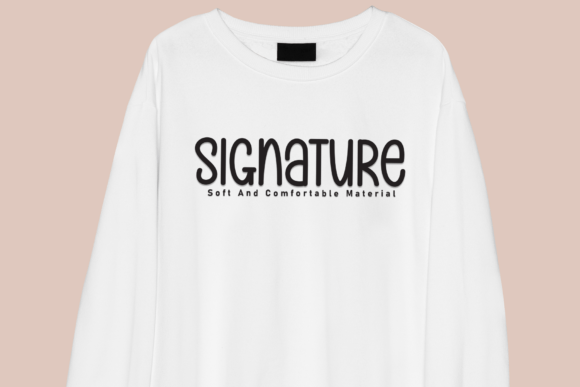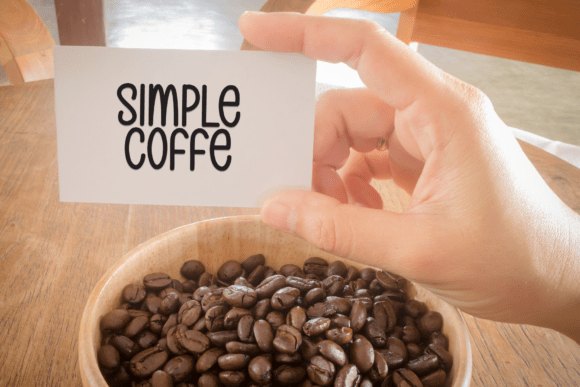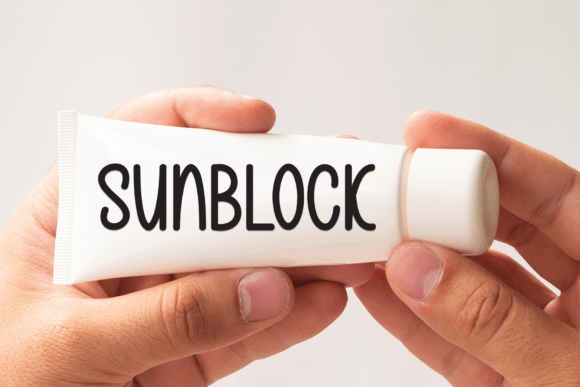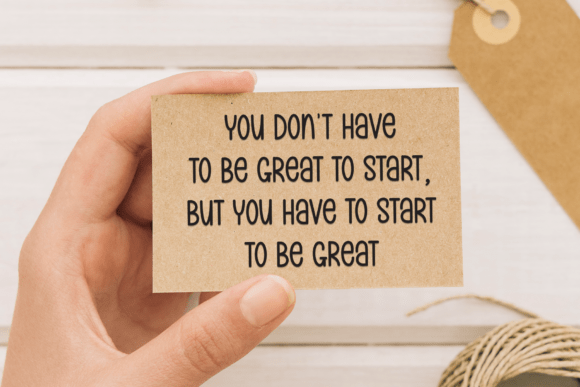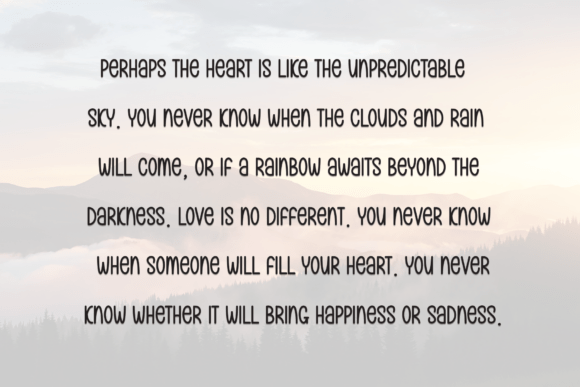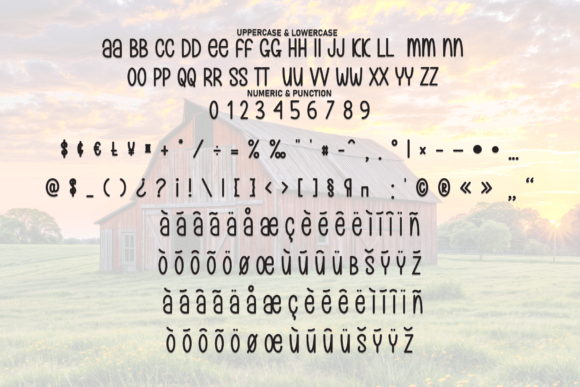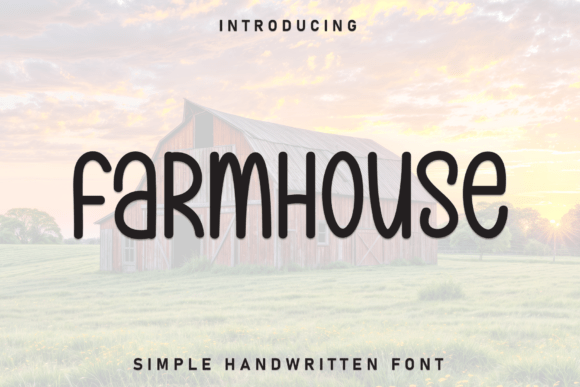
Introducing Farmhouse Font: The Perfect Blend of Simplicity and Friendliness
In the world of typography, fonts play a crucial role in conveying the tone and personality of a brand or design. For designers and crafters looking for a font that exudes warmth, approachability, and modernity, Farmhouse Font is an excellent choice. This casual and neat display font combines simplicity with a friendly vibe, making it perfect for a wide range of design applications.
Clean Lines, Balanced Letterforms, and Subtle Rounded Edges
Farmhouse Font boasts clean lines, balanced letterforms, and subtle rounded edges that give it a unique and polished finish. The font’s design is inspired by modern handwritten typography, but with a refined and sophisticated twist. The clean lines and balanced letterforms ensure that the font is easy to read, while the subtle rounded edges add a touch of warmth and friendliness.
Ideal for Branding, Headlines, Packaging, and Digital Content
Farmhouse Font is an incredibly versatile font that can be used for a variety of design applications. Its crisp structure and warm personality make it perfect for:
- Branding: Create a lasting impression with Farmhouse Font, which adds a touch of warmth and approachability to your brand’s identity.
- Headlines: Make your headlines stand out with Farmhouse Font’s clean lines, balanced letterforms, and subtle rounded edges.
- Packaging: Add a personal touch to your packaging designs with Farmhouse Font, which conveys a sense of friendliness and approachability.
- Digital Content: Use Farmhouse Font to add a warm and inviting touch to your digital content, including social media posts, blog articles, and website headers.
What Makes Farmhouse Font Special?
So, what sets Farmhouse Font apart from other fonts? Here are a few key features that make it an excellent choice for designers and crafters:
- Unique Blend of Simplicity and Friendliness: Farmhouse Font combines the simplicity of modern typography with the friendliness of handwritten fonts.
- Polished Finish: The font’s subtle rounded edges and balanced letterforms give it a polished finish that’s perfect for professional designs.
- Versatility: Farmhouse Font can be used for a wide range of design applications, from branding and headlines to packaging and digital content.
- Easy to Read: The font’s clean lines and balanced letterforms ensure that it’s easy to read, even at small sizes.
Here are a few tips for using Farmhouse Font in your designs:
- Pair it with Other Fonts: Farmhouse Font pairs well with other fonts, including serif and sans-serif fonts.
- Use it for Headlines and Titles: Farmhouse Font is perfect for headlines and titles, where its clean lines and balanced letterforms can shine.
- Add a Personal Touch: Use Farmhouse Font to add a personal touch to your designs, including packaging and digital content.
Farmhouse Font is an excellent choice for designers and crafters looking for a font that combines simplicity with a friendly, approachable vibe. Its clean lines, balanced letterforms, and subtle rounded edges make it perfect for a wide range of design applications, from branding and headlines to packaging and digital content. With its polished finish and versatile style, Farmhouse Font delivers clarity and charm in equal measure.
Whether you’re designing a brand identity, creating packaging, or developing digital content, Farmhouse Font is sure to become a favorite in your font collection.